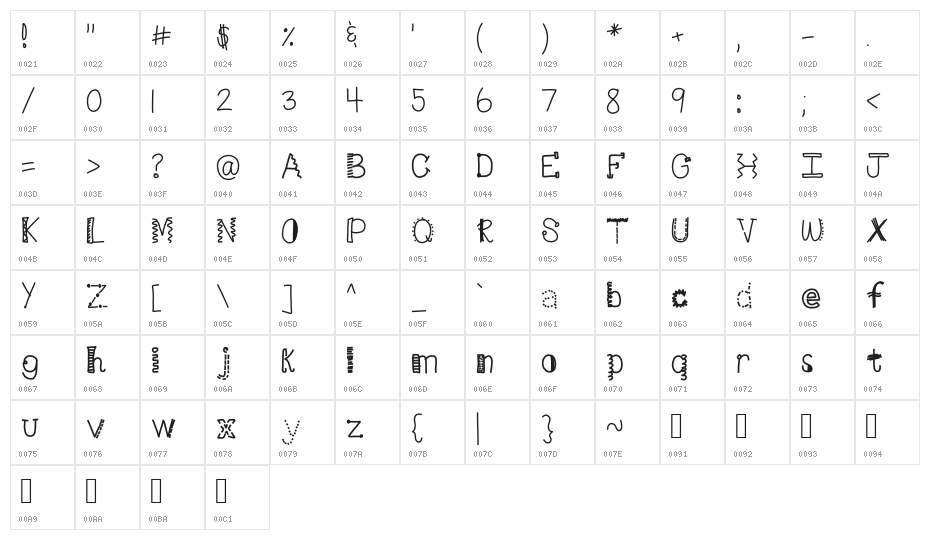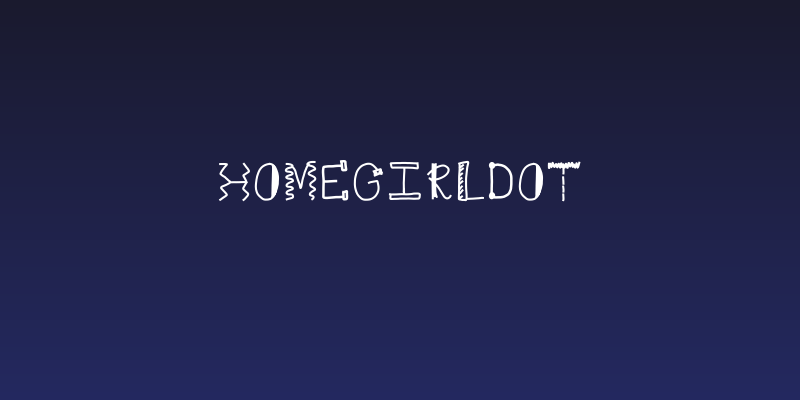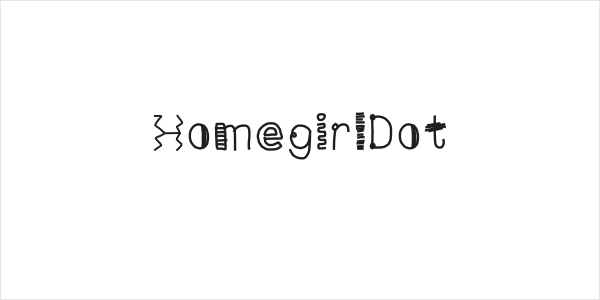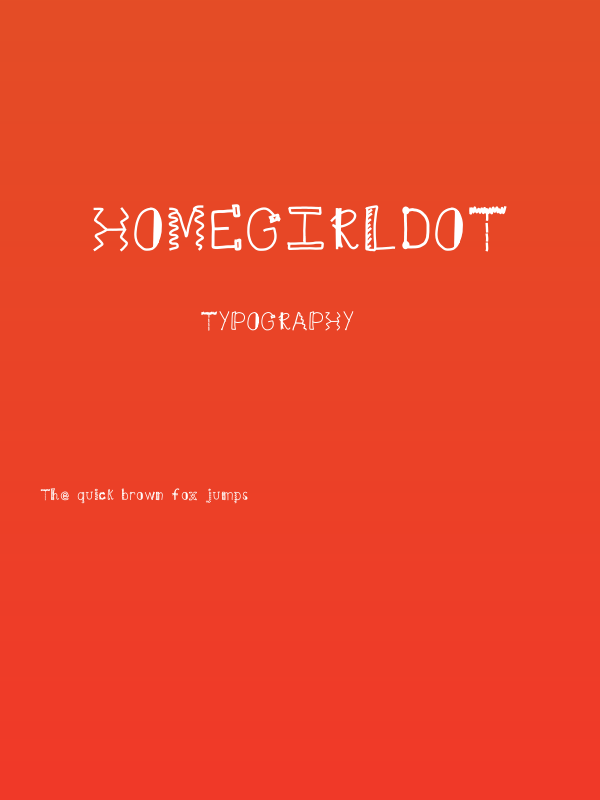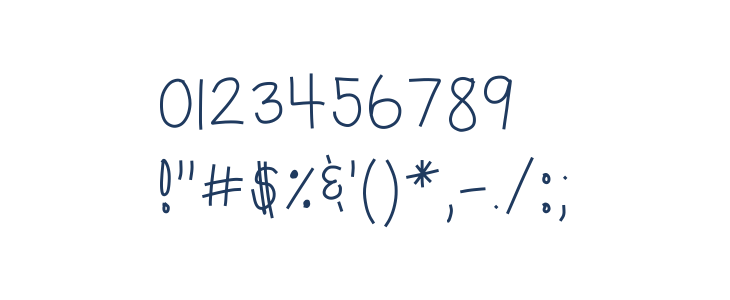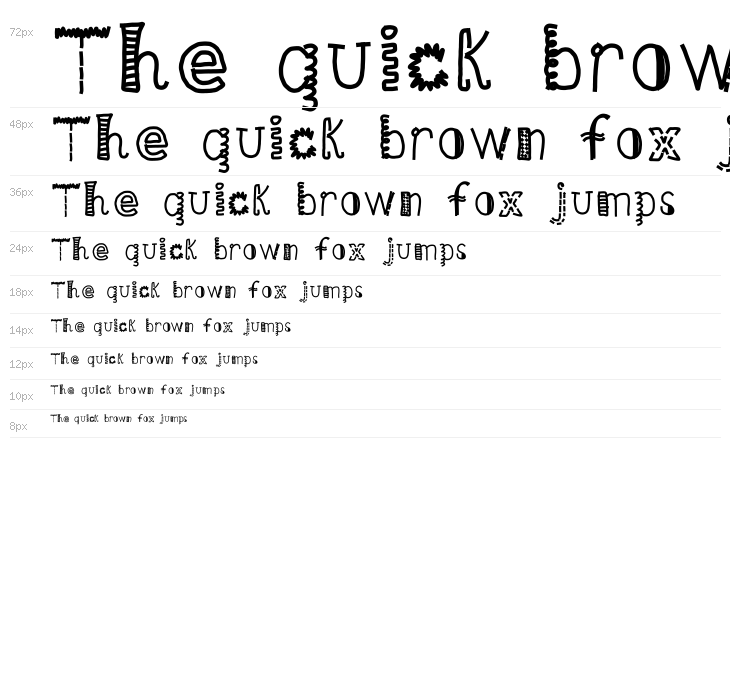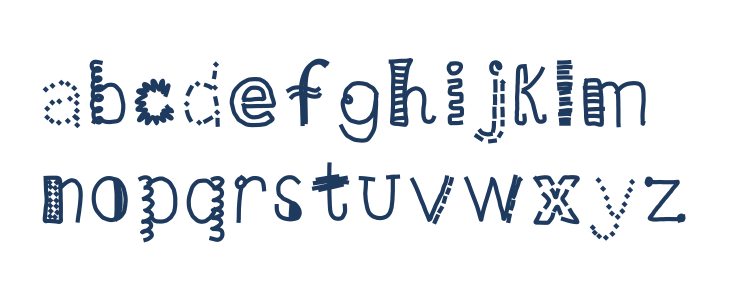
HomegirlDot Font
HomegirlDot Description
This playful and eclectic font features a variety of unique and whimsical designs for each character. The uppercase letters are bold and feature a mix of patterns, including stripes, dots, and zigzags, giving them a lively and dynamic appearance. The lowercase letters continue this theme with a slightly more subdued style, yet still maintain the quirky and fun essence. Numbers are straightforward with a slight tilt, adding to the overall playful nature. Special characters are creatively designed, fitting seamlessly with the rest of the font. This font is perfect for projects that require a touch of creativity and fun, making it ideal for children's books, playful branding, or artistic posters.
| Proposed Projects | Children's books, playful branding, artistic posters, creative invitations. |